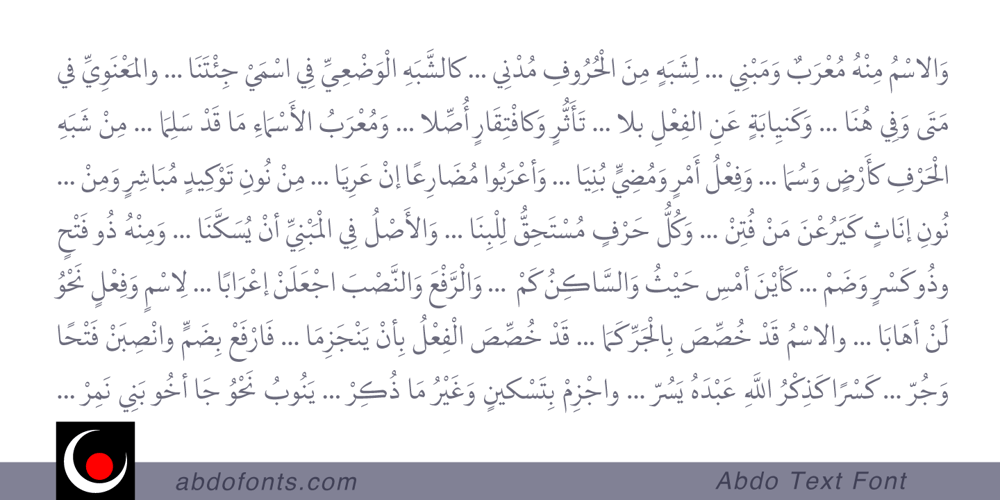
Abdo Text
Abdo Text font
Abdo Text Font Family was designed by Abdulsamiea Rajab Salem and published by Abdo Fonts. Abdo Text contains 4 styles and family package options. Abdo Text is an Arabic Naskh font for books and magazines discriminate accurately design and clarity of reading, it comes in one weight. Will later add mor weights and a copy of it to write the Koran Ottoman drawing. This is an OpenType Font supporting Arabic,and compatible with the various operation systems and modern software. This font also contains many of Stylistic Sets, Ligatures and Justification Alternatives – 775 glyphs.